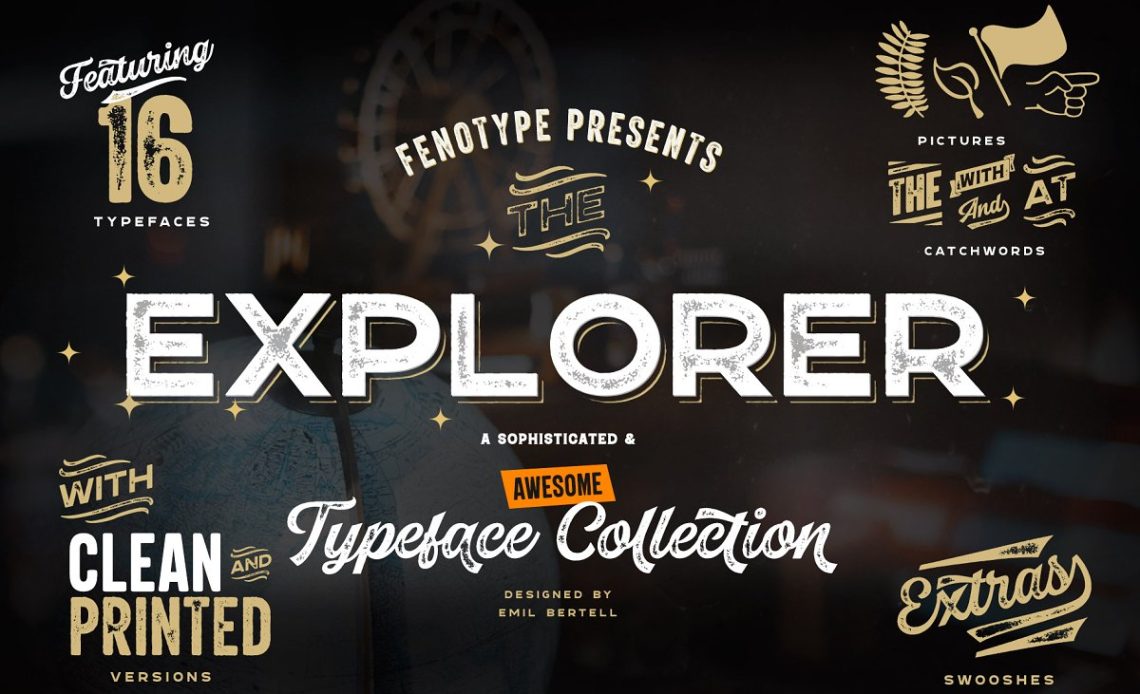
Explorer is a sans-serif font family with a strong script type and straight edges. It's designed to work perfectly together, making it the perfect choice for designers who want a cohesive and professional look.
Let's take a closer look at what's included in the Explorer collection. You'll get 8 fonts, each with a clean and textured version, catchwords, swooshes, and pictures. The Explorer Script is equipped with Contextual Alternates that make the connections between letters smooth. It also has Swash, Stylistic, and Titling Alternates for standard characters, giving you a more customized look. The Explorer Script has three weights to choose from.
If you're looking for a wide all caps sans-serif font that commands attention, the Explorer Sans is the perfect choice. It has two weights and is sure to make a statement. Alternatively, the Explorer Condensed is a sturdy all caps condensed sans-serif with rounded edges. It also has two weights to choose from.
The Explorer Serif is a bulky all caps serif that is perfect for headlines and titles. And if you're looking to add a little extra flair, the Explorer Swoosh is a collection of strokes and swooshes designed to go with the Script. Try adding a connecting one in the end of a word written with Script or place a loose swoosh above or below a word.
Finally, the Explorer Catchword is a collection of catchwords designed to go with all Explorer fonts, making it easy to create stunning designs that grab attention.